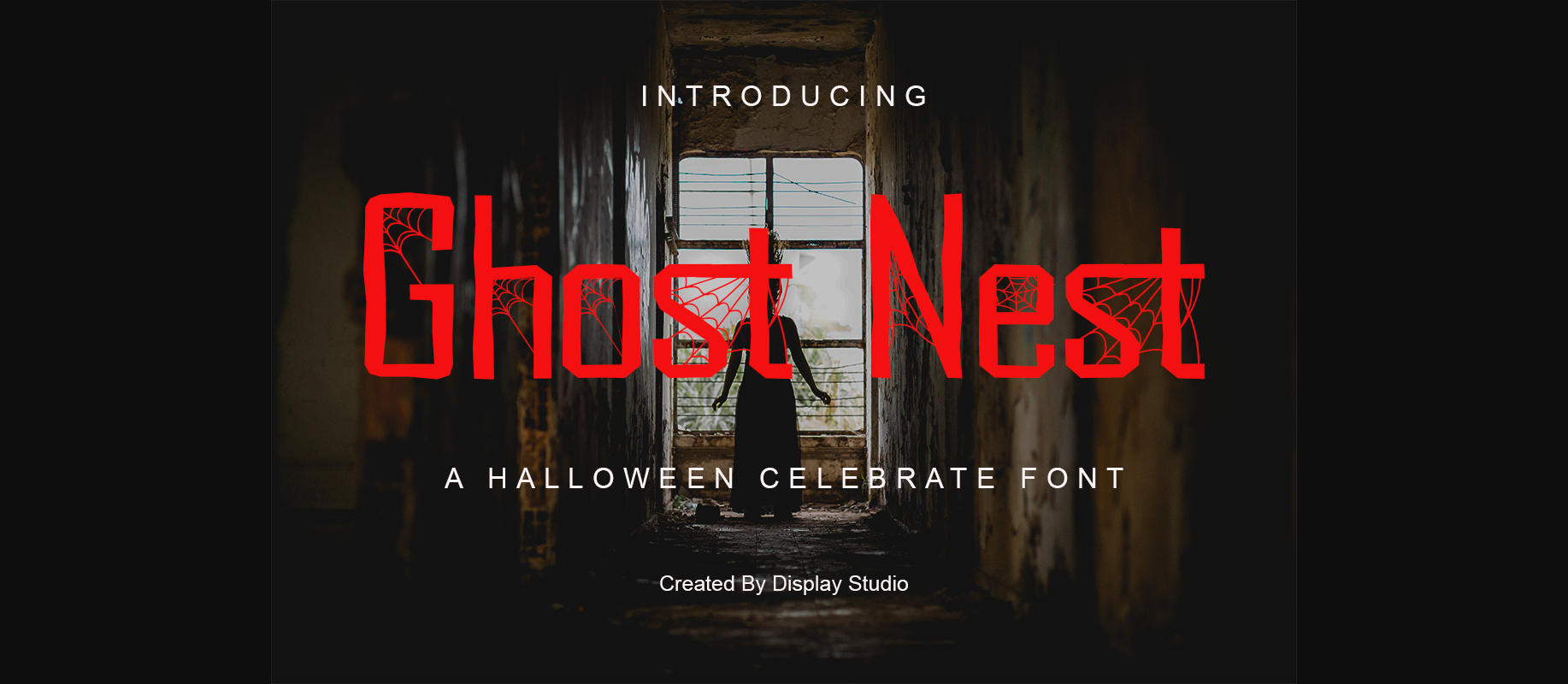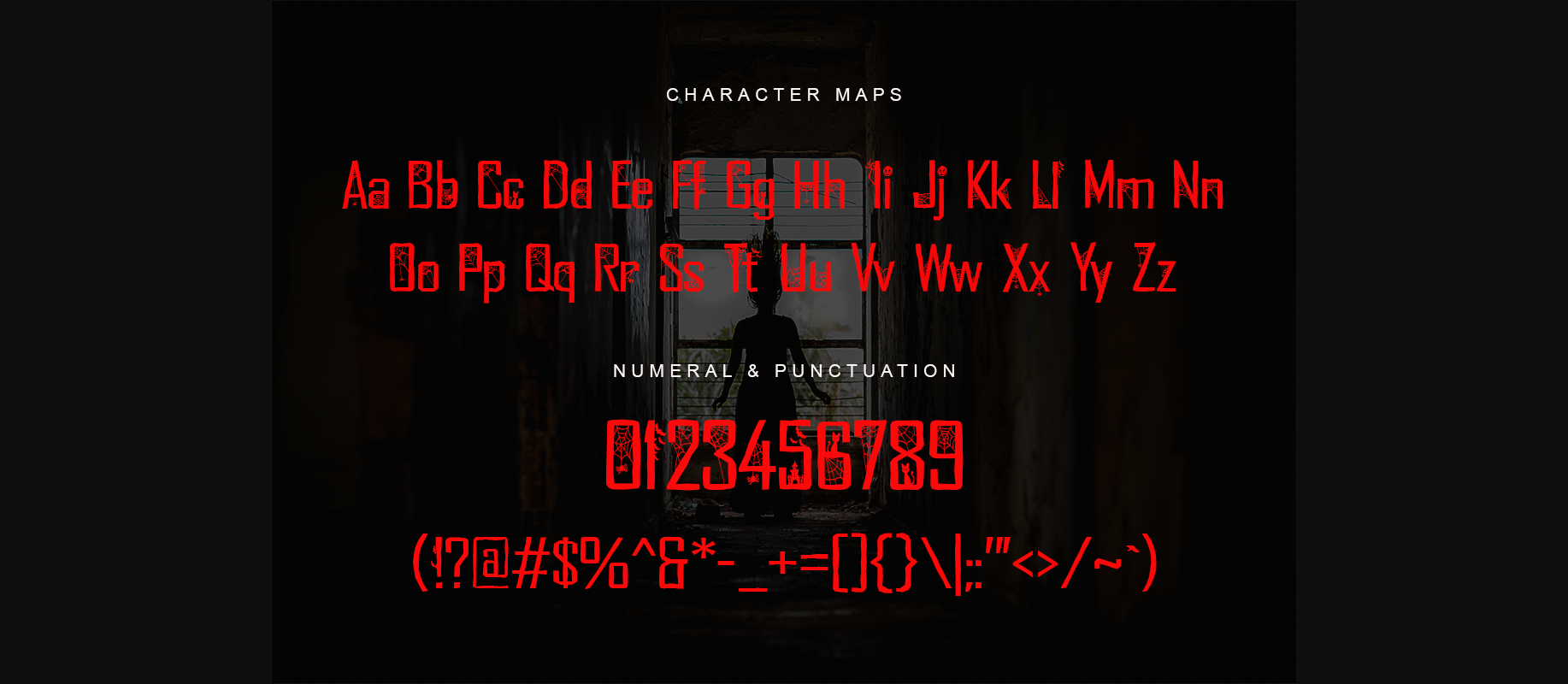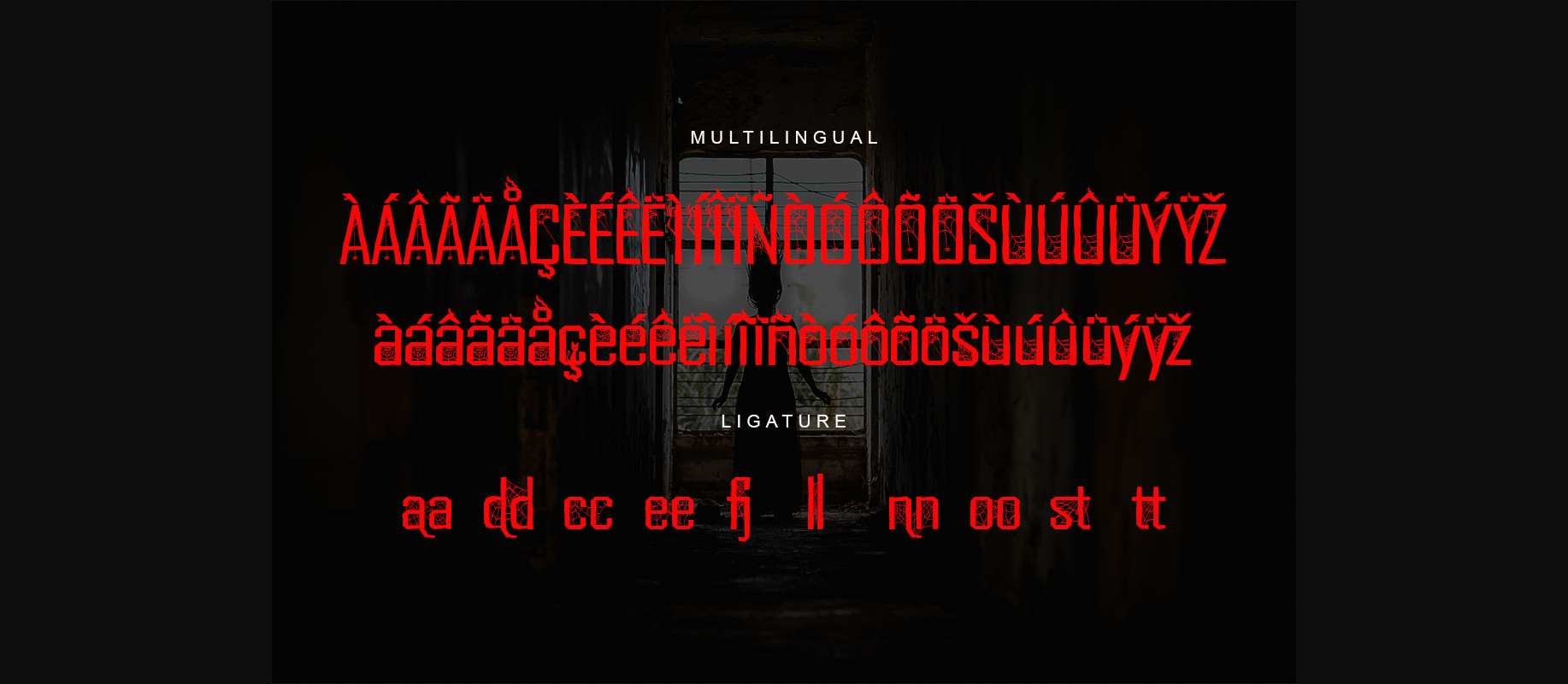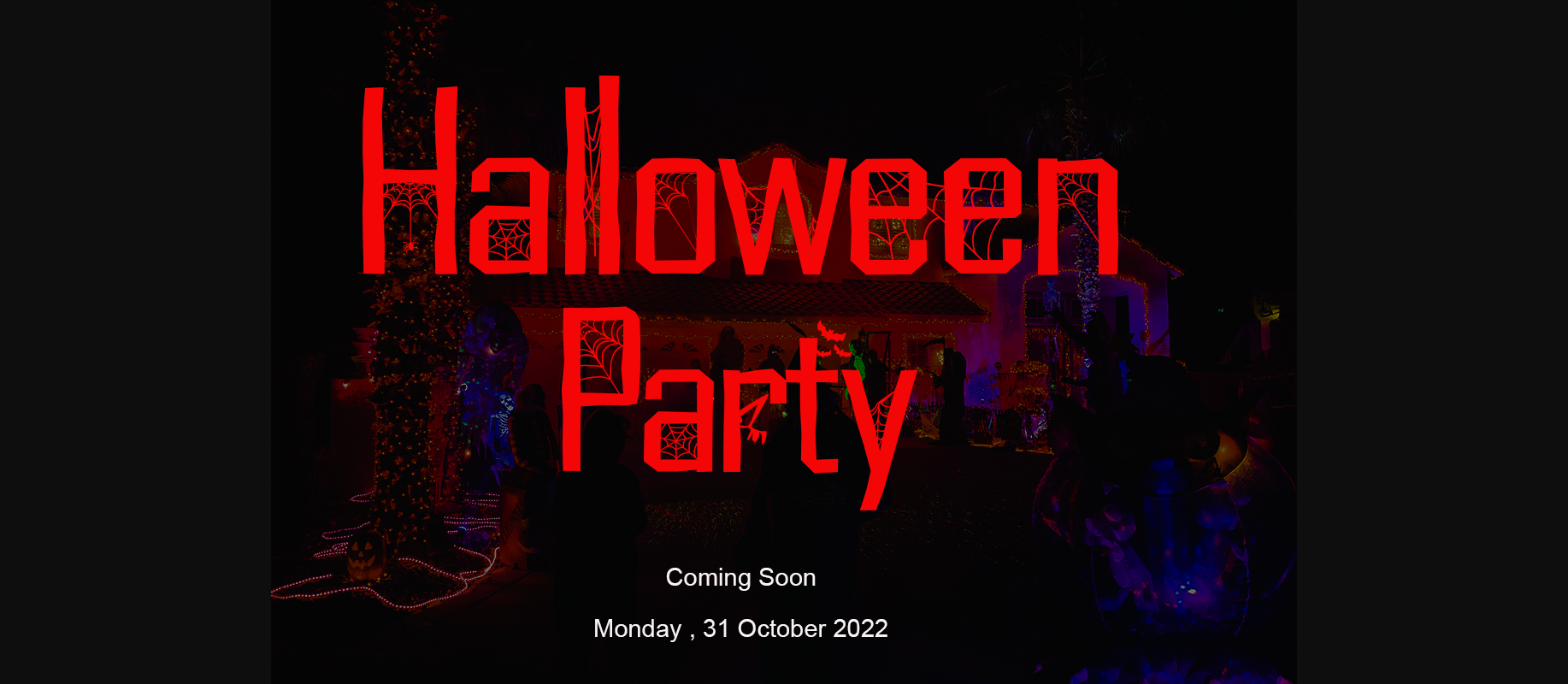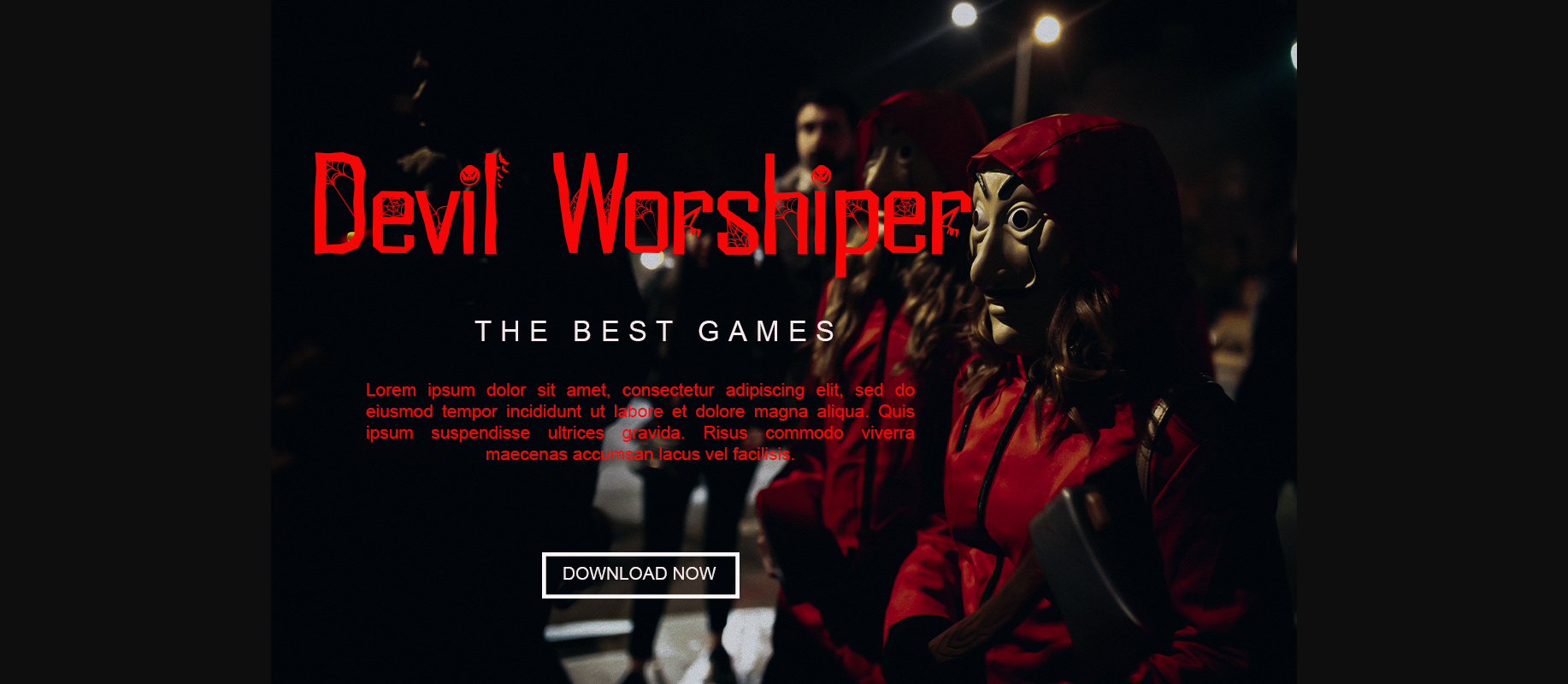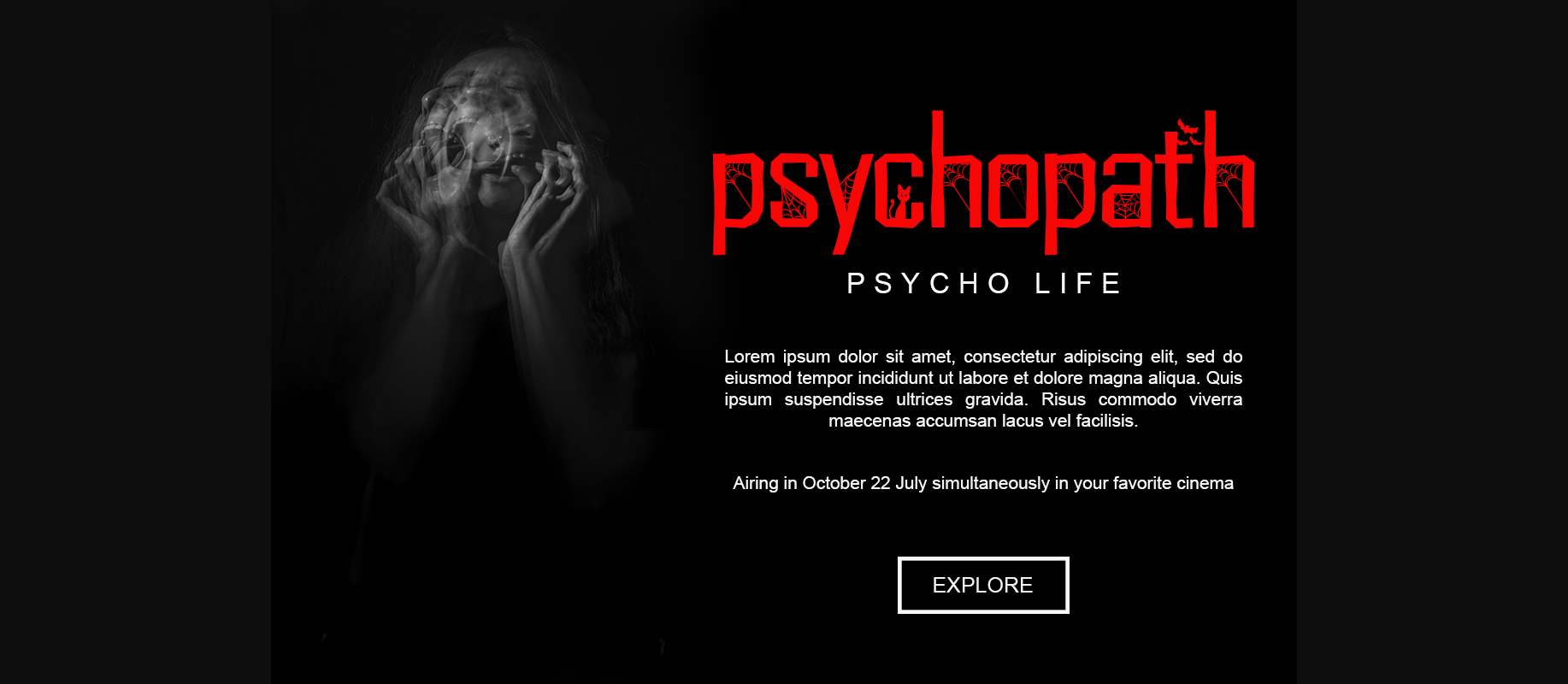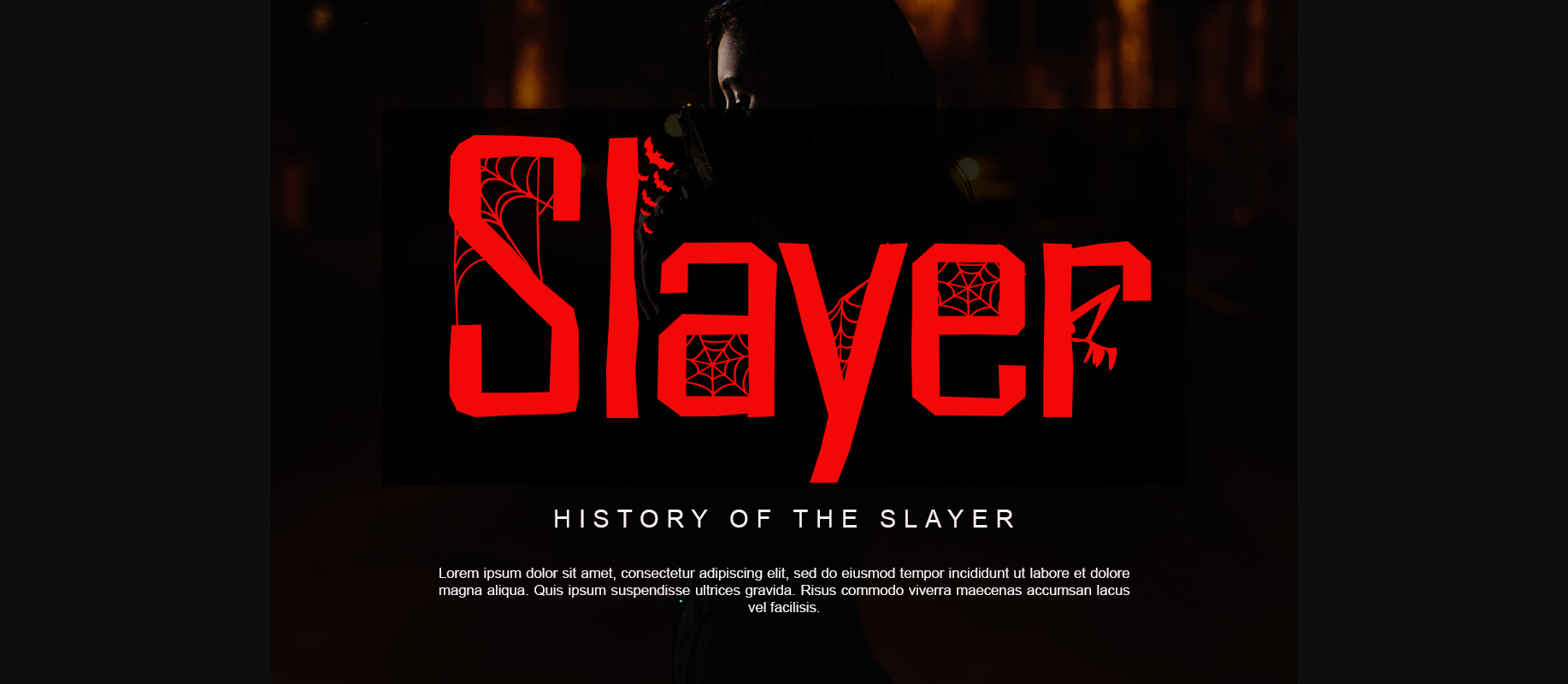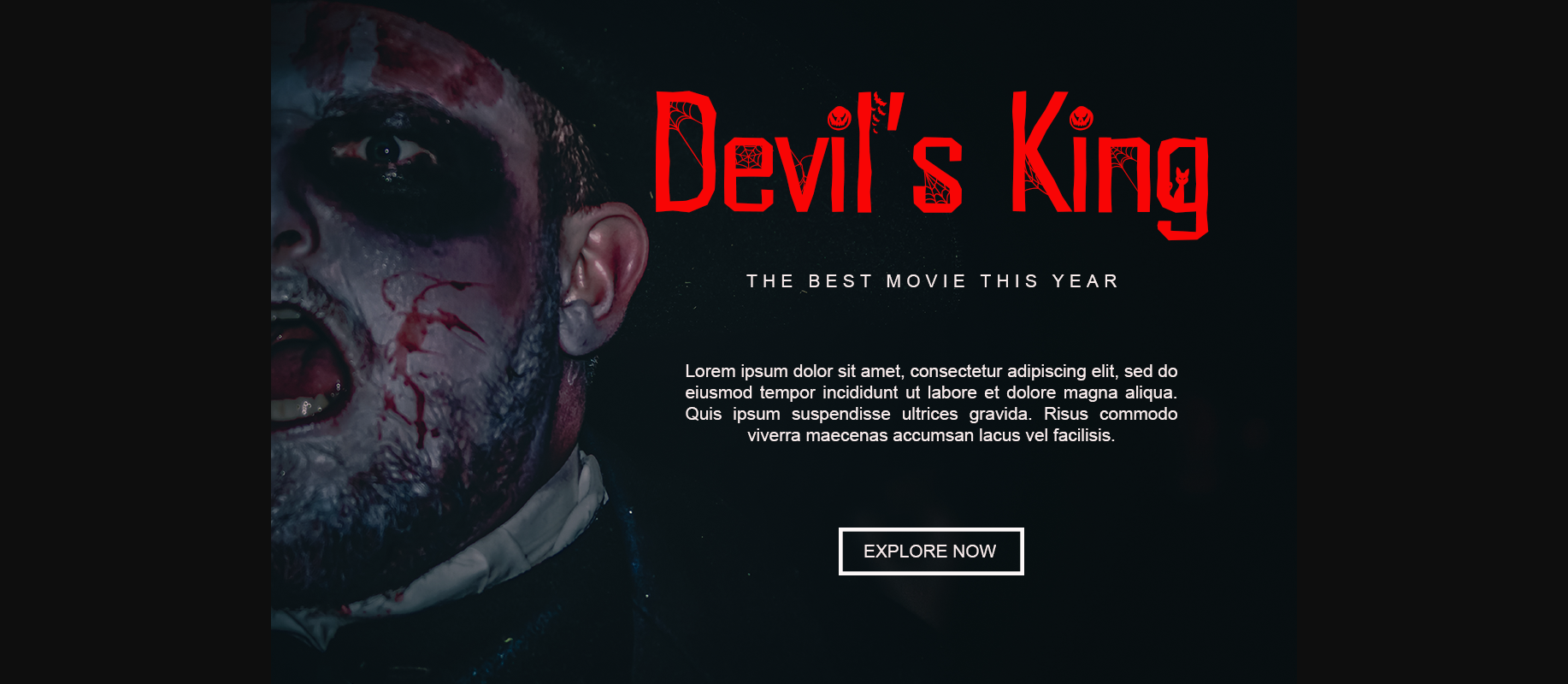
Ghost Nest is a bold and spooky decorative font. Add it to your Halloween crafts, horror movie posters, t-shirts and anything else that requires a spectacular look.